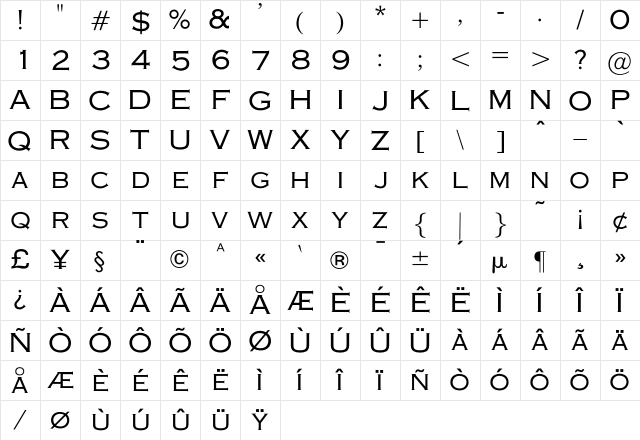
OPTICopperplate-Light Regular Free Font
OPTICopperplate-Light Regular
OPTICopperplate-Light Family
OPTICopperplate-Light Regular
Complete OPTICopperplate-Light Regular glyph index. Displaying only characters natively supported by OPTICopperplate-Light Regular font.
Design Context for OPTICopperplate-Light
OPTICopperplate-Light is a composed and adaptable typeface that performs quietly and consistently across a wide range of design contexts. Its slender proportions lend an understated elegance to any composition.